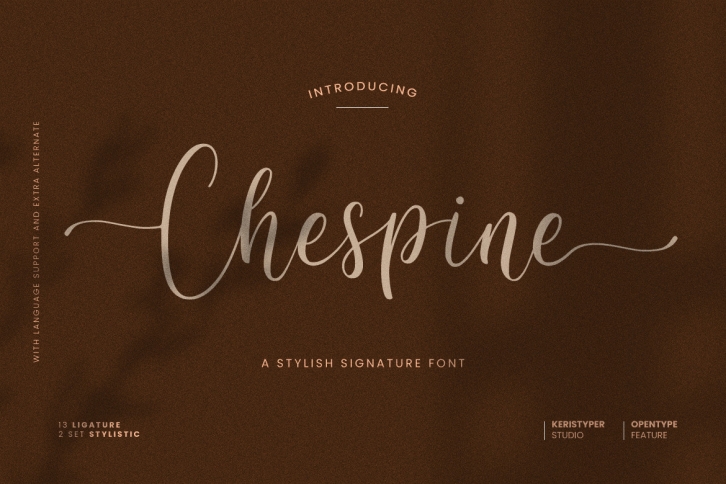
Chespine is a frail and delicate script font. It works fabulously on various designs that require a romantic touch. Add it to your wedding invitations, cards, letters or pretty much anything that could benefit from a sweet vibe.